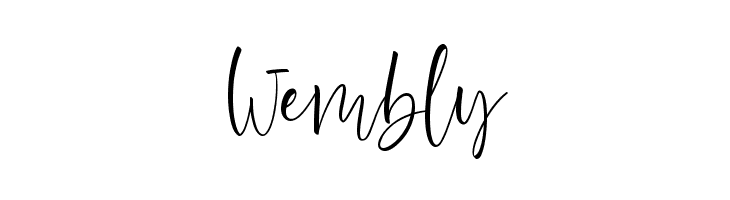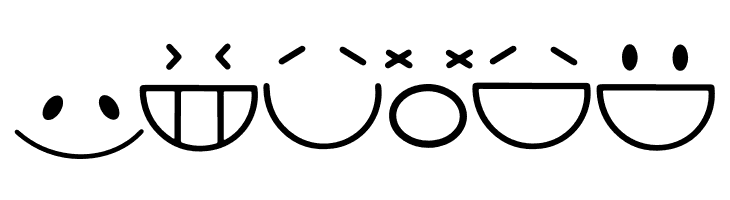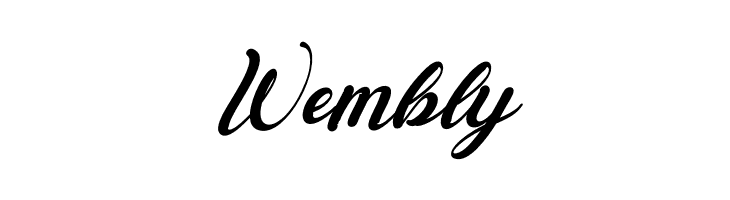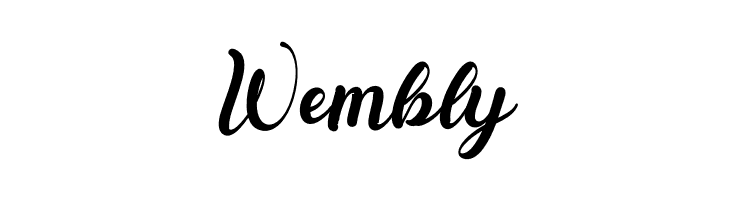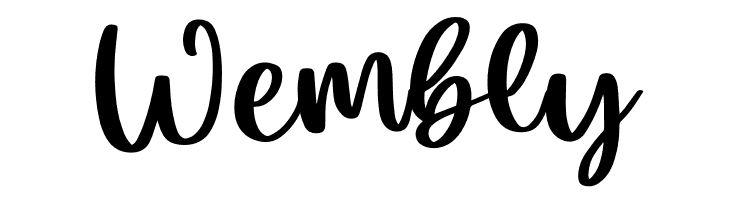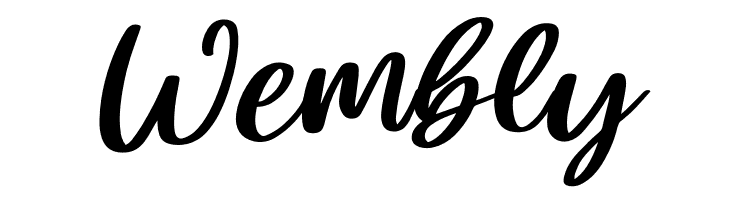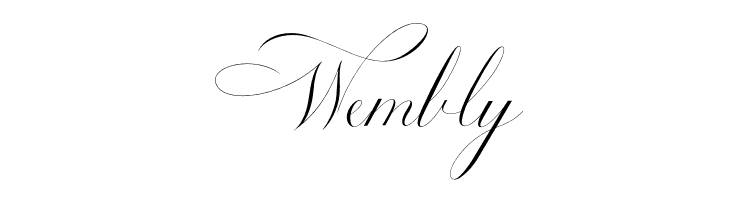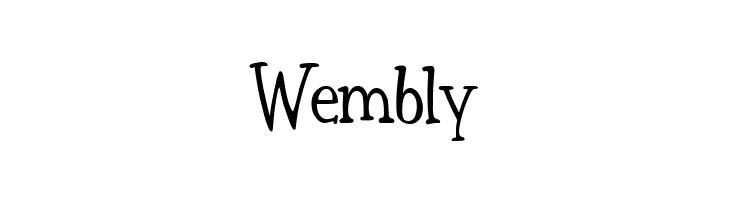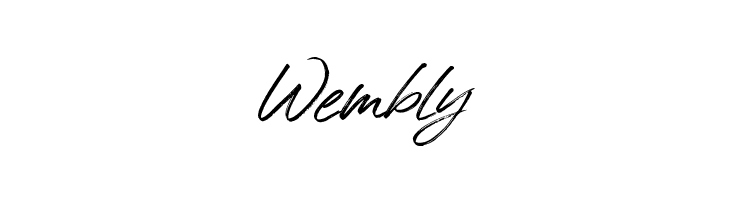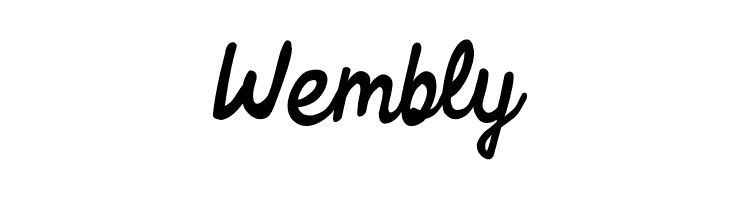
A modern, handwritten script with elegant, elongated characters.
An elegant script font with flowing, cursive strokes and decorative uppercase letters.
A playful, hand-drawn font with a whimsical and artistic style.
A playful and dynamic script font with fluid, connected letterforms.
A playful, flowing script font with smooth, connected strokes.
A bold, flowing script font with a handwritten style.
A modern, cursive script font with a bold, italic style.
A modern, elegant handwritten font with fluid and graceful strokes.
A playful and elegant script font with smooth, flowing letters.
A lively, expressive script font with a handwritten feel and medium contrast.
A flowing, cursive script font with elegant loops and swashes.
A decorative font made up of emoticon faces and expressions.
A bold, playful font with a hand-drawn, artistic style.
A romantic and elegant script font with graceful loops and swashes.
A dynamic and fluid script font with elegant, flowing letterforms.
A tall, slender, and modern font with clean lines and minimal curves.
A bold, rounded, and playful font with a hand-drawn feel.
A dynamic and elegant script font with fluid, cursive strokes.
A dynamic handwritten font with fluid strokes and a casual, sophisticated style.
A futuristic, geometric font with angular and segmented letterforms.
A fluid and dynamic handwritten font with smooth, flowing strokes.
An elegant and flowing script font with intricate swashes and flourishes.
A sleek, modern font with elongated, thin strokes and a minimalist aesthetic.
A sleek, italic font with thin, elongated characters and a modern, elegant style.
A bold, cursive font with interconnected letters and elegant swashes.
A bold, elegant script font with flowing, cursive letterforms.
An elegant, flowing script font with smooth, cursive strokes and artistic flair.
An elegant and playful font with tall, slender letterforms and subtle curves.
A flowing, cursive font with elegant loops and flourishes.
A flowing, cursive font with elegant, connected characters.
A modern, geometric outline font with uniform line thickness and balanced proportions.
A modern, condensed sans-serif font with clean lines and uniform strokes.
A lively, expressive handwritten font with dynamic strokes and playful flair.
A dynamic, expressive handwritten font with fluid, flowing letterforms.